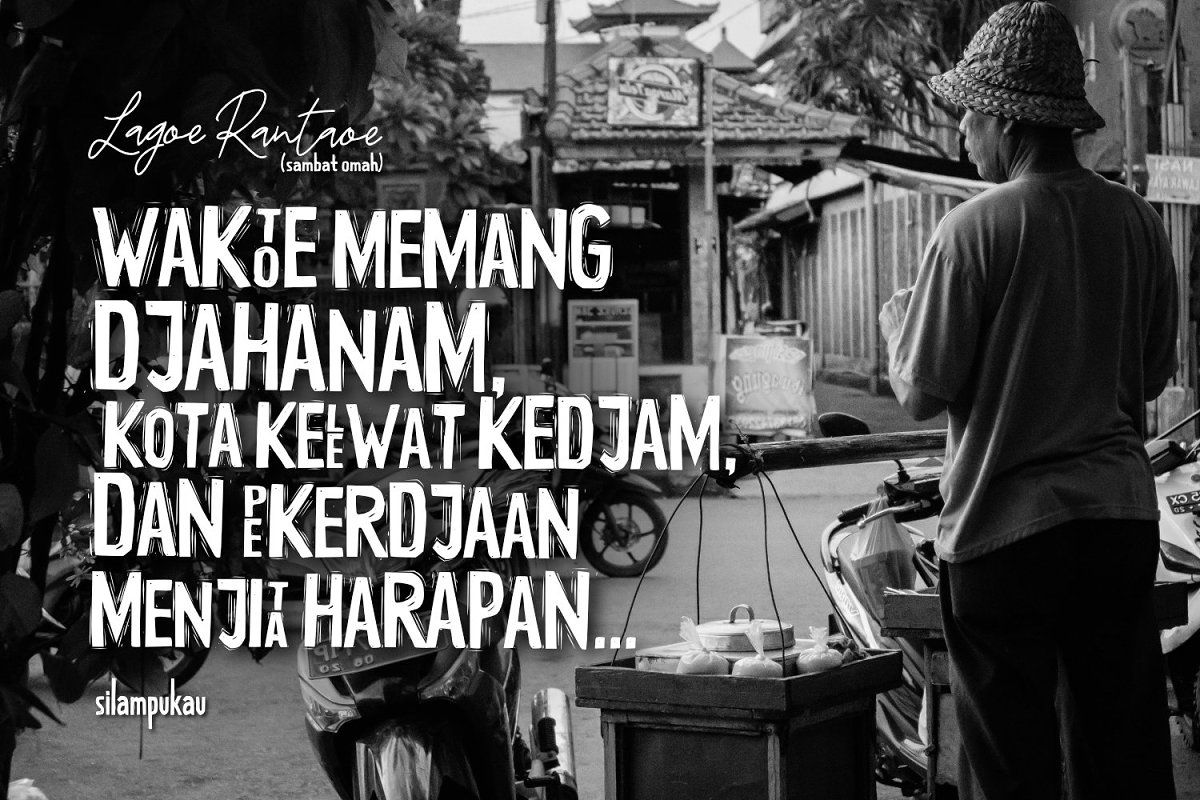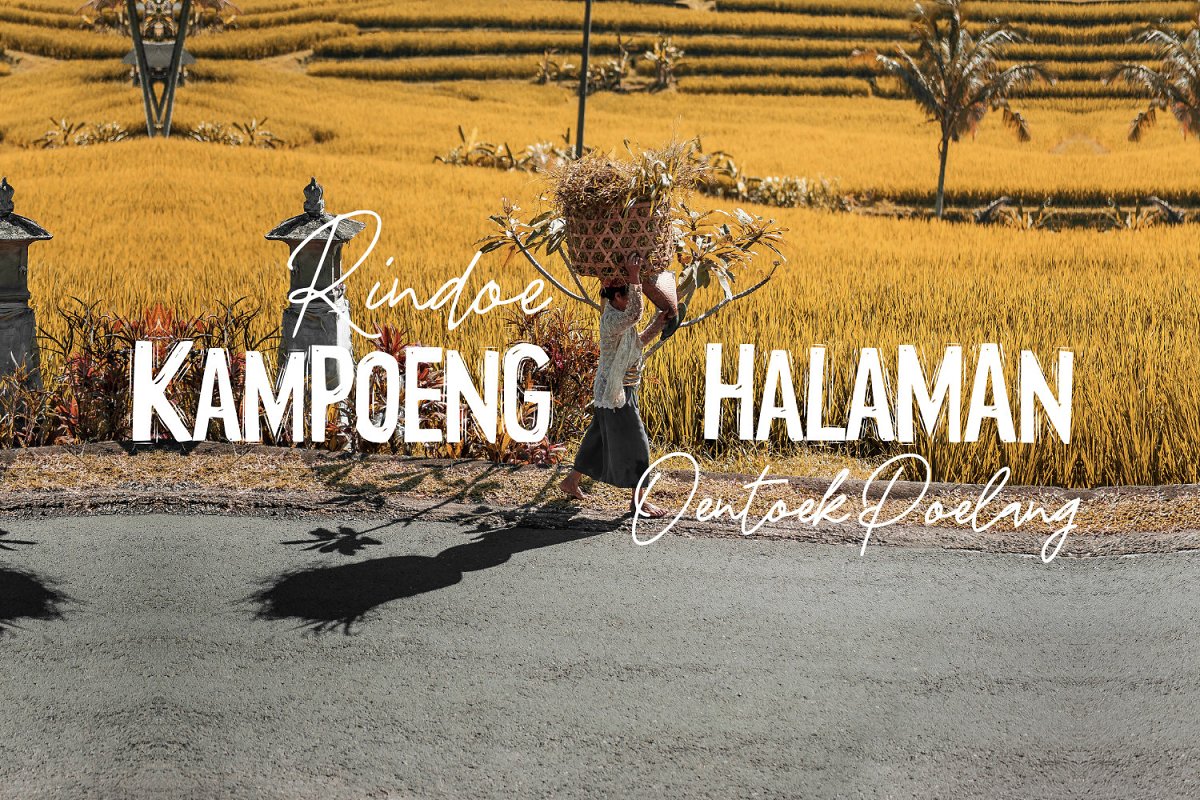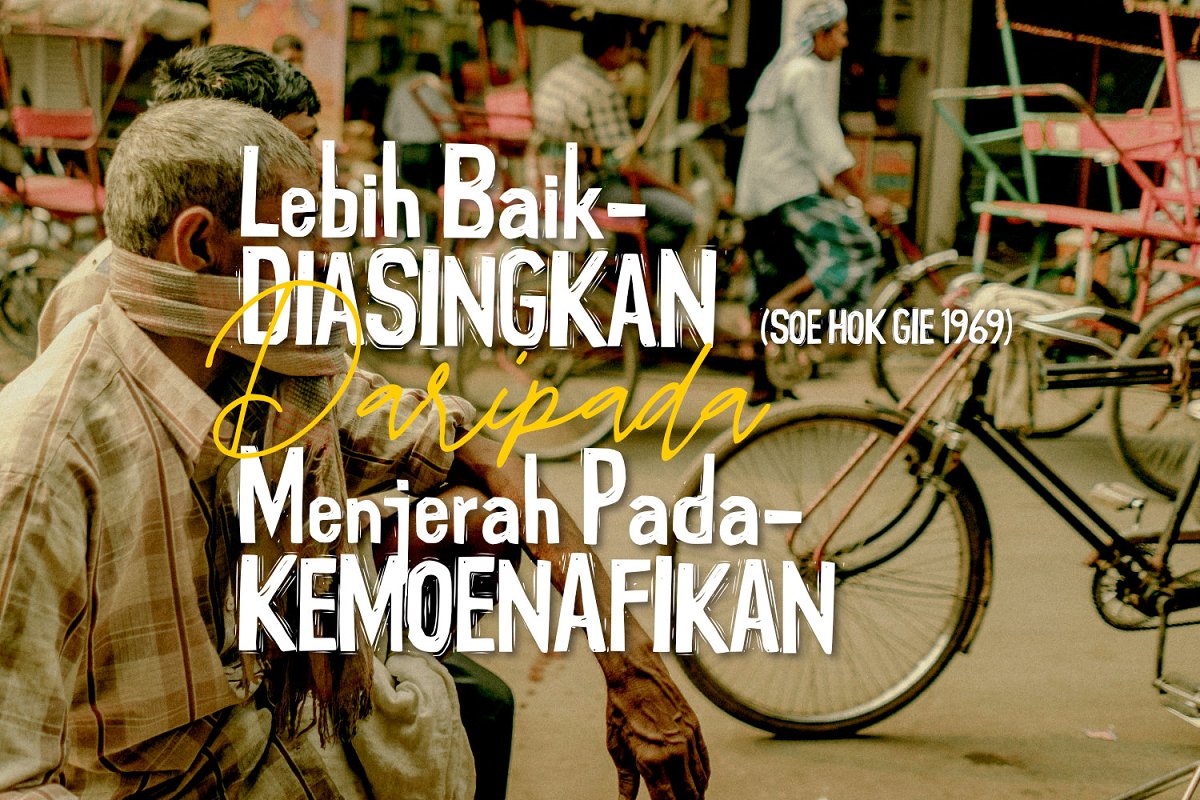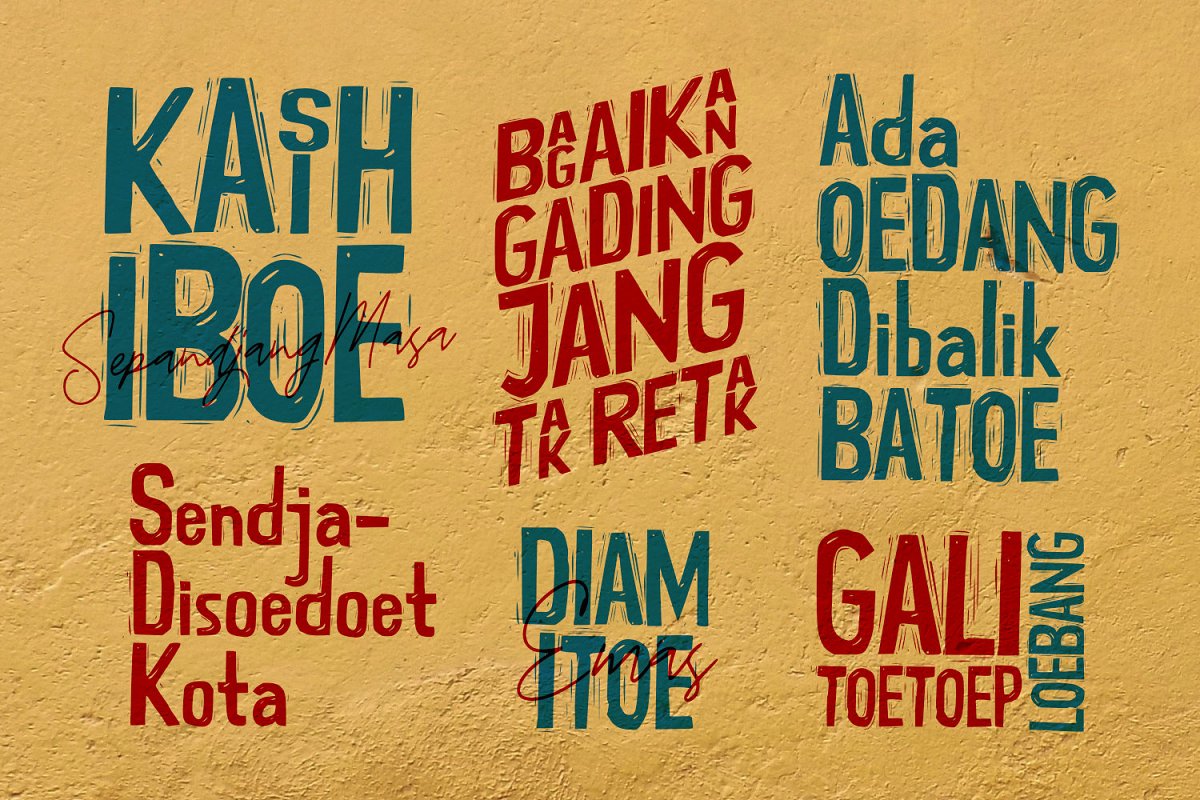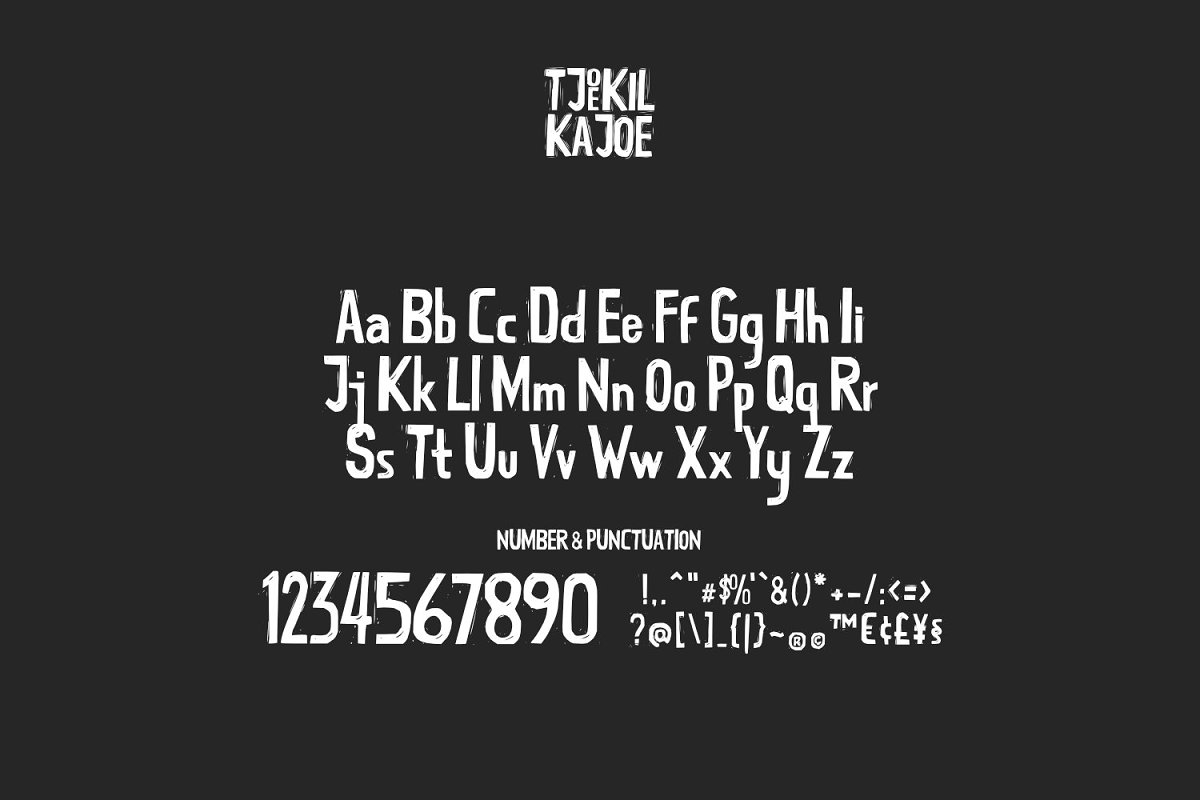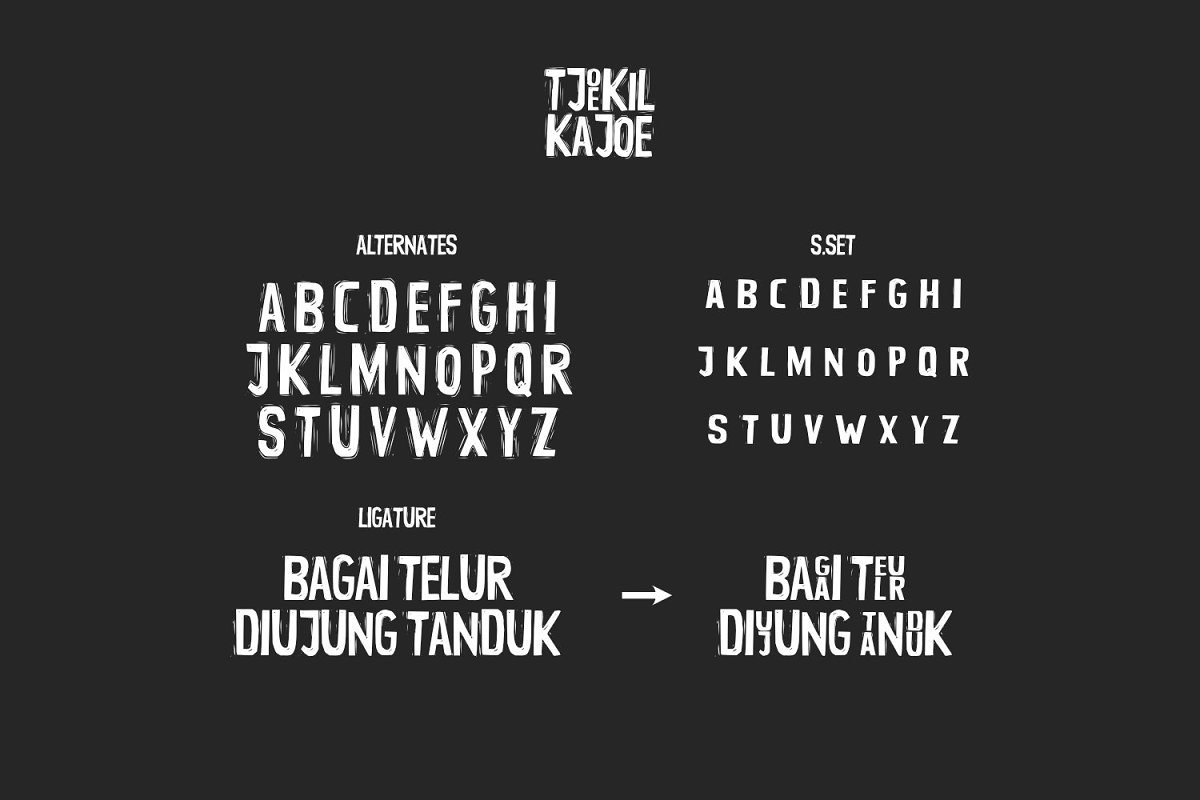
About the Tjoekil Kajoe Vernacular Type Font
Introducing Tjoekil Kajoe – Indonesian Vernacular Typeface, created by ikiiko collaboration with Brancok (a, k, a Dhani Soenyoto)Tjoekil Kajoe is a linocut typography shape adapted to indonesian vernacular culture with many decorative glyphs, You can play with sizes, alternatives and styles to get the style of typographic character just the way you want it